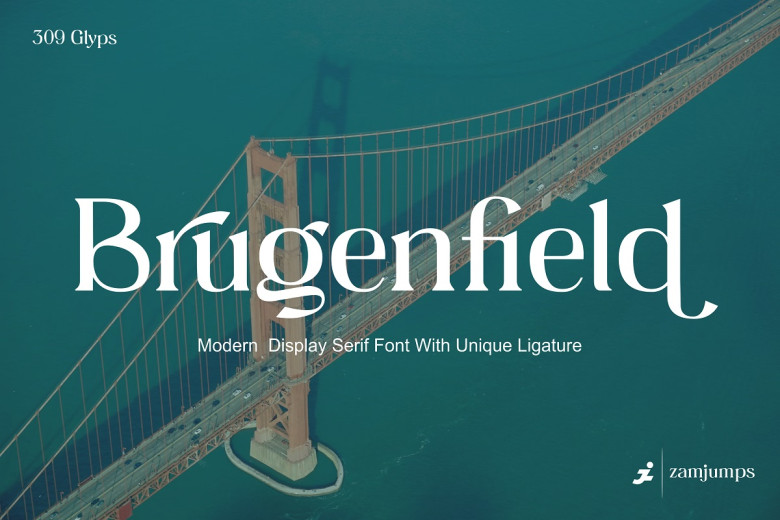
Brugenfield Font
Brugenfield is an elegant display serif font featuring an exclusive ligature. Careful consideration was taken in its design to deliver high-end quality and luxurious feel, and its bindings make it stand out from other serif fonts. Ideal for headlines, logos and titles as well as formal designs like invitations and labels it can also be found in books, logos magazines wedding greeting cards stationery fashion make-up stationary labels or any form of advertising campaigns.